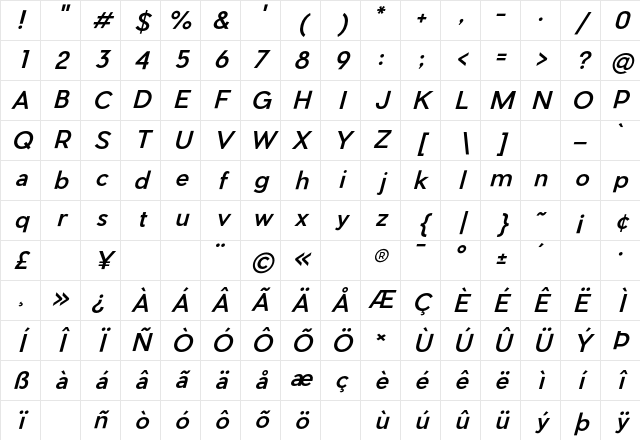
Pier Sans Medium Italic
Foundry: Pangram Foundry
Designer: Mathieu Desjardins
Design Context for Pier Sans Medium
Pier Sans Medium is a composed and adaptable typeface that performs quietly and consistently across a wide range of design contexts. The slanted form adds forward momentum and visual energy.